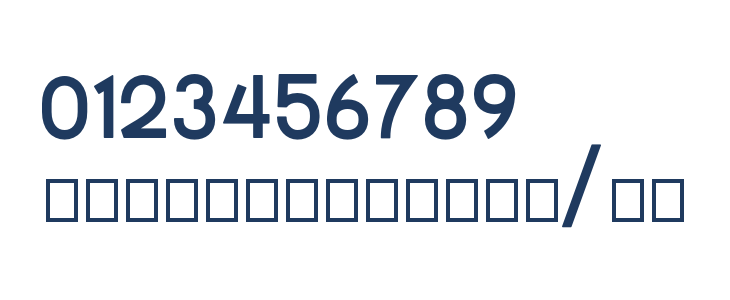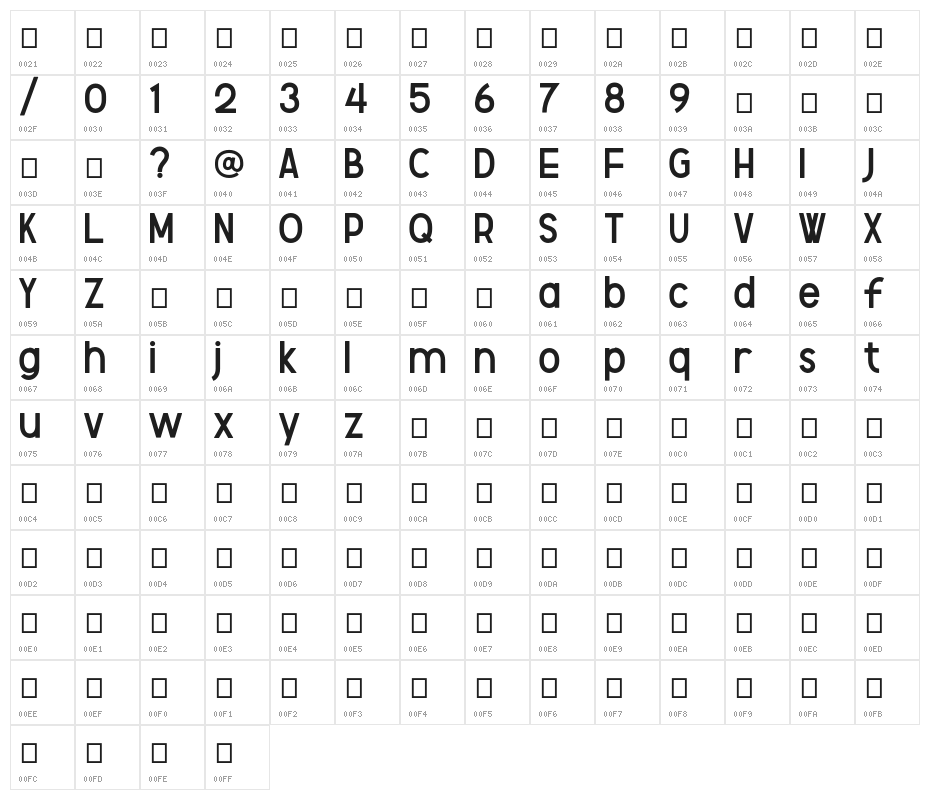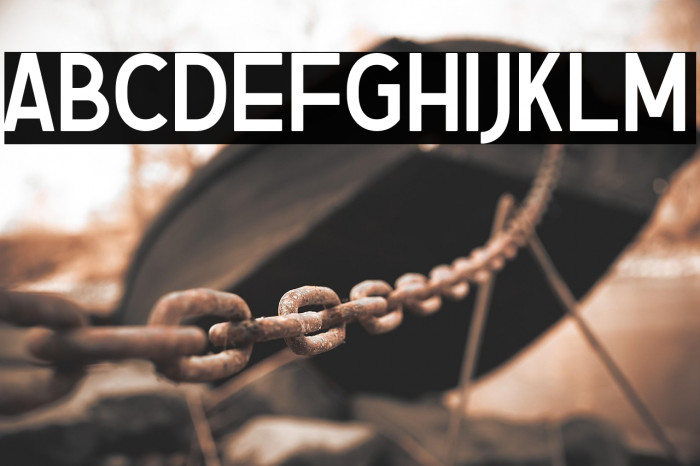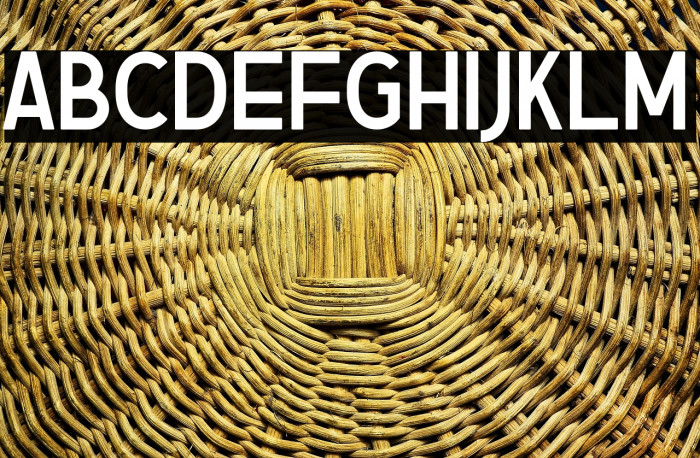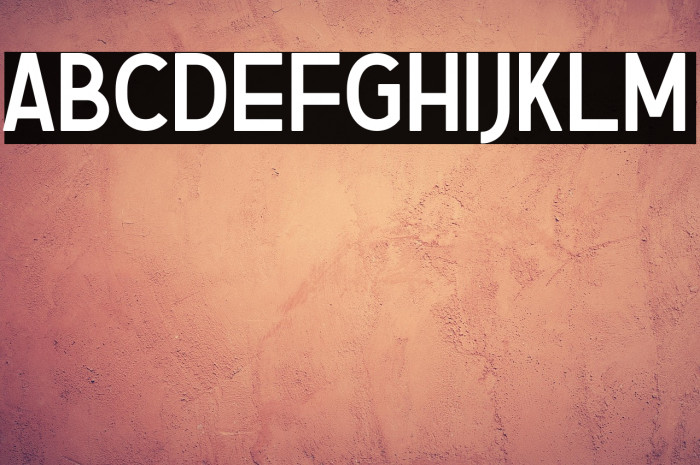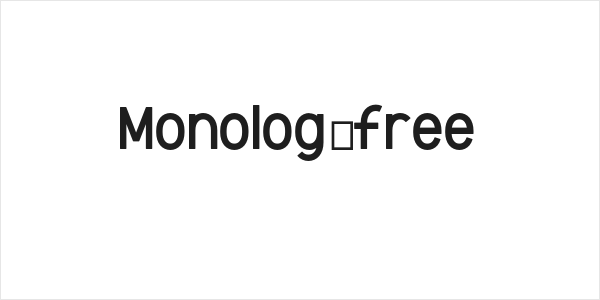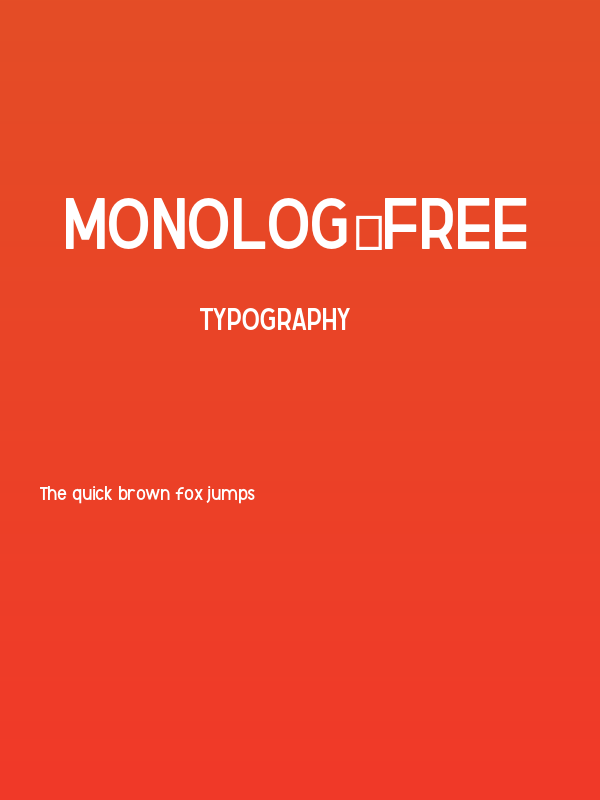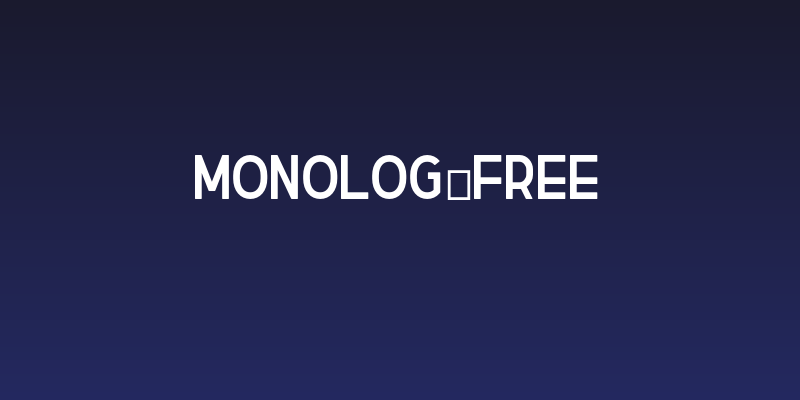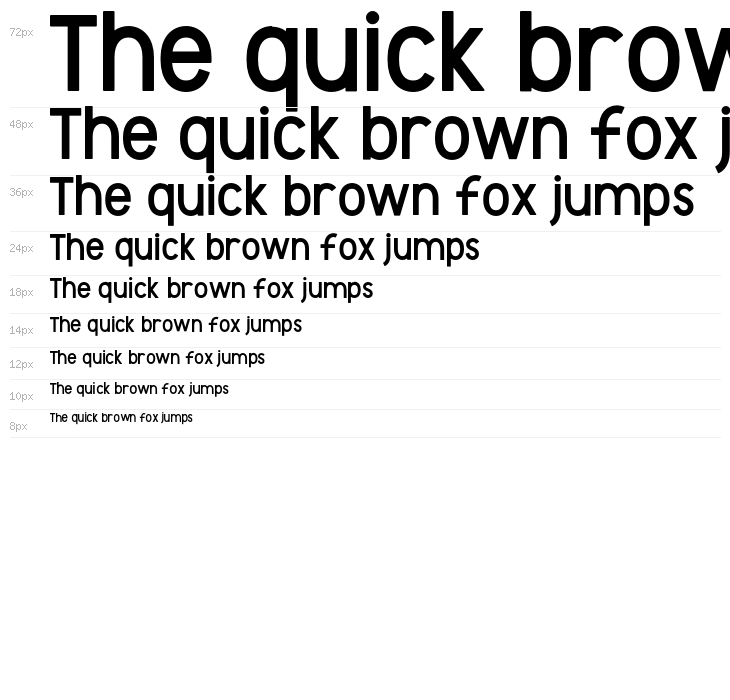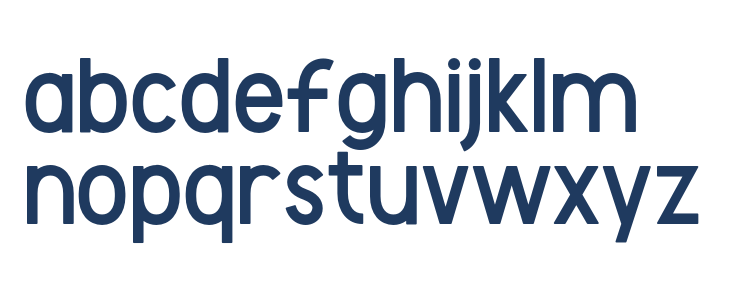
Monolog-free Font
Monolog-free Description
This font features a clean and modern sans-serif design with uniform stroke widths, providing a balanced and professional appearance. The characters are well-proportioned, with a slightly rounded finish that adds a touch of friendliness to the overall look. The uppercase letters are bold and assertive, while the lowercase letters maintain a consistent style that complements the uppercase. The numerals are clear and easily distinguishable, making them suitable for various applications. The font's simplicity and clarity make it versatile for both digital and print media.